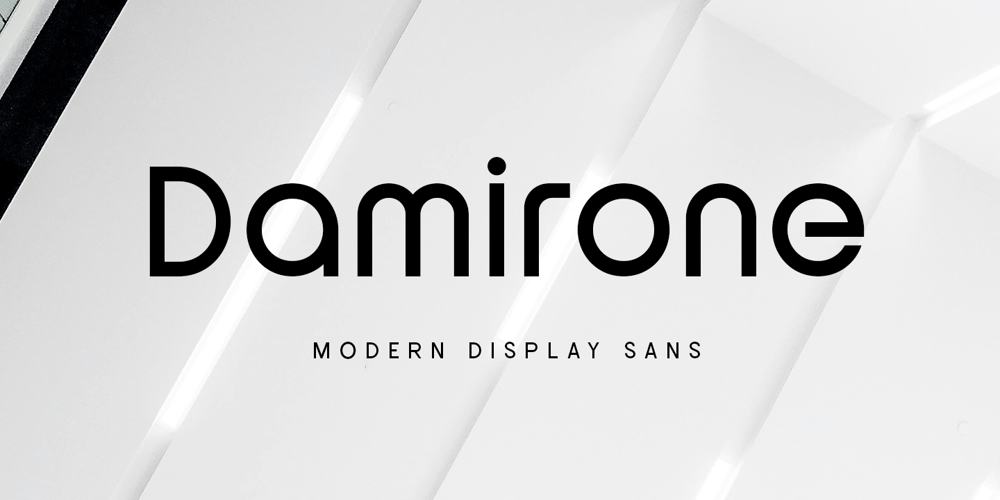
Damirone
Damirone font
Damirone Font Family was designed by Novitasari Romli and published by Novitype. Damirone contains 1 styles and family package options. Damirone is a elegant display sans. Futuristic style which is suitable for minimalist themes with unique letterforms. Designed with a light stroke and geometric curves give your design look clean and stands out.Damirone font includes special characters, multilingual support, and versatile ligatures, allowing you to mix and match for logos, posters, quotes, headlines, and much more!